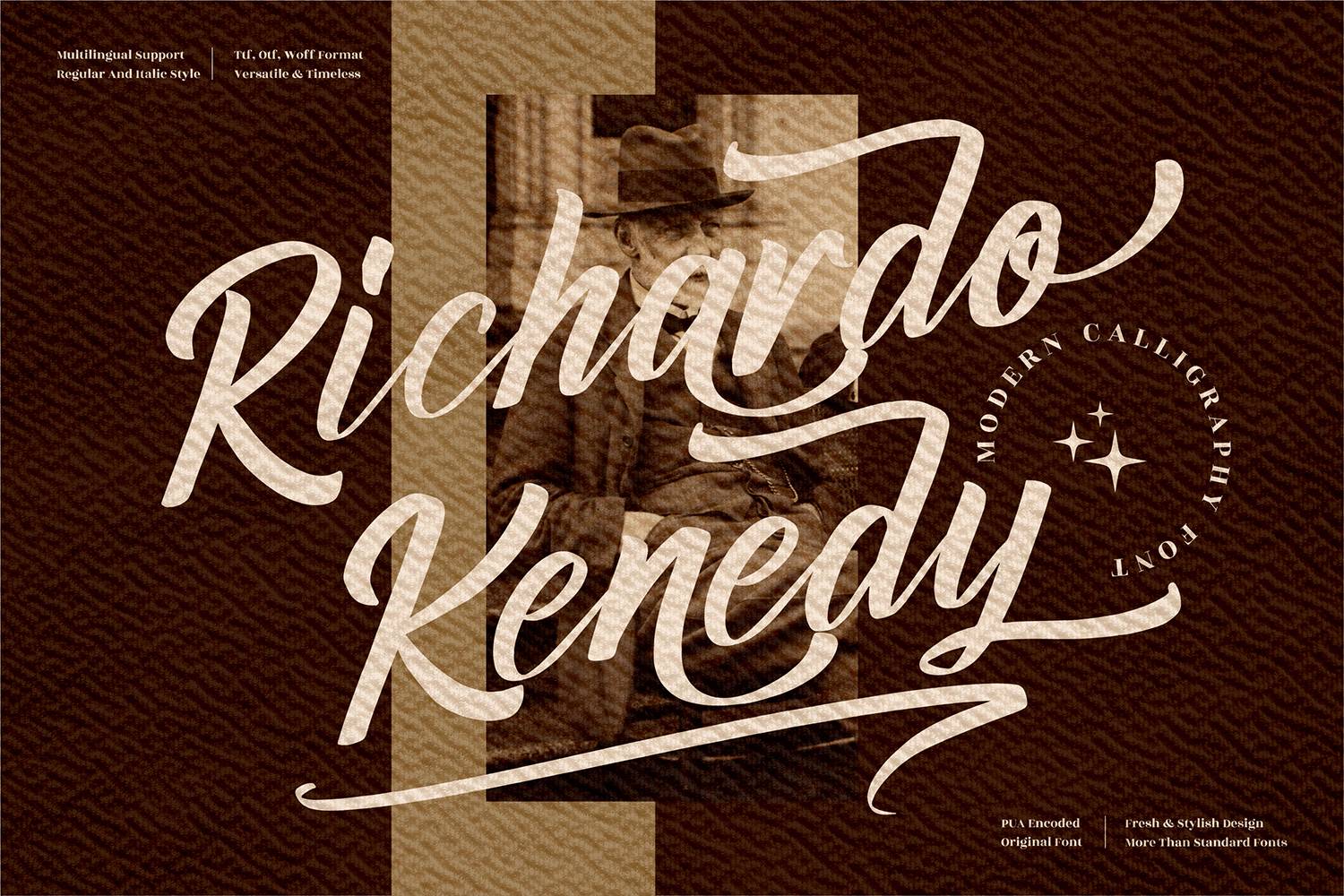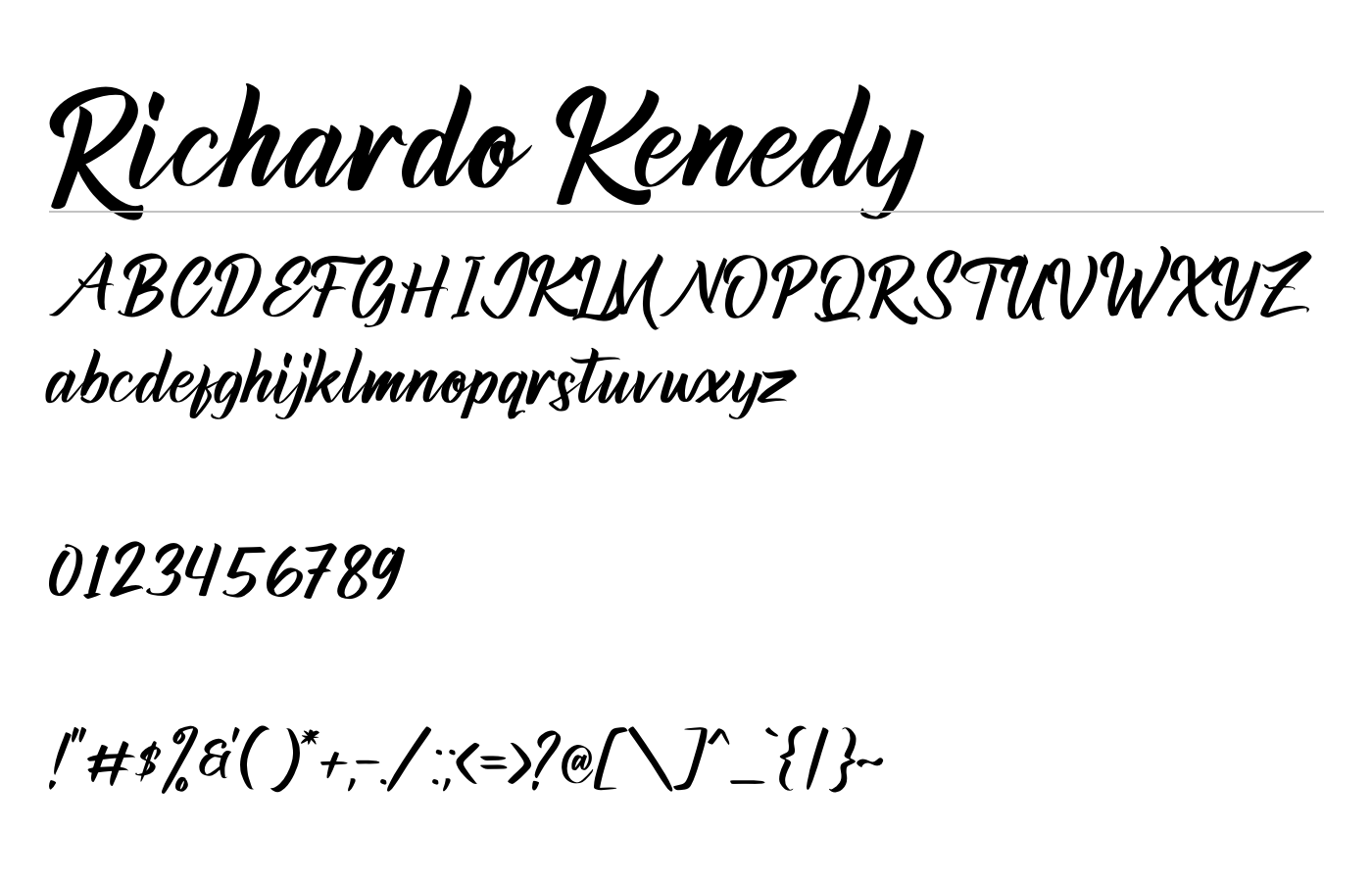
Richardo Kenedy is a lively and elegant script font with a handwritten feel, featuring smooth, flowing strokes and moderate contrast. Its dynamic and slightly casual style makes it perfect for branding, invitations, and creative projects that want to convey a friendly yet sophisticated personality. This font works well in headlines and logos where a personal, artistic touch is desired.
Richardo Kenedy Font
About Richardo Kenedy Font